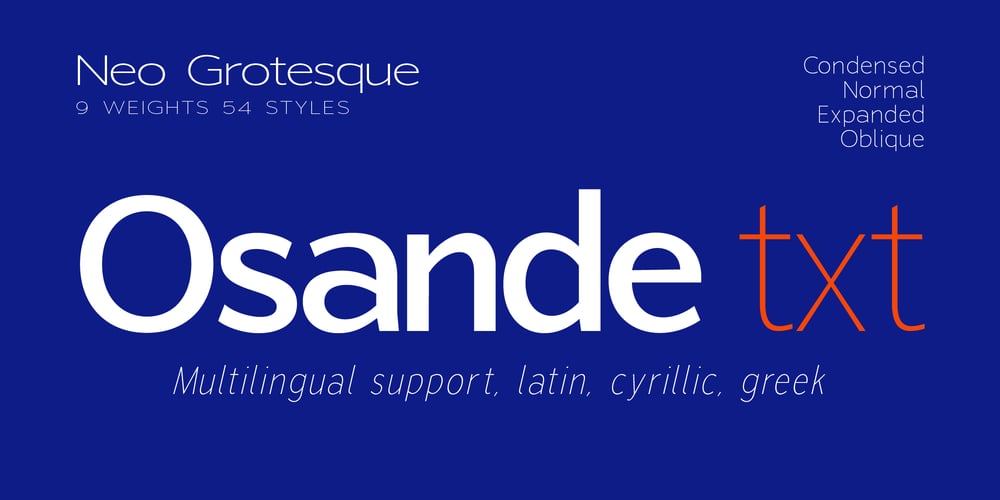
Osande TXT Font Family was designed by Faldy Kudo and published by XdCreative. Osande TXT contains 54 styles and family package options. About Osande-TXT Neo-Grotesques SansOsande TXT was created and inspired by Osande Pro (by. faldykudo), which carries a modern sans style with a touch of neo-grotesques / neo-gothic These include a large x-height, simpler forms and more static, low contrast, and often a condensed width.Osande TXT comes with enhancements characters and more complete language support, so you will be more flexible to use this font family for your various design, both for body text or displays.Thank you in advance_xdCreative